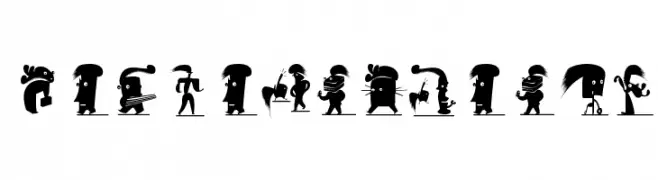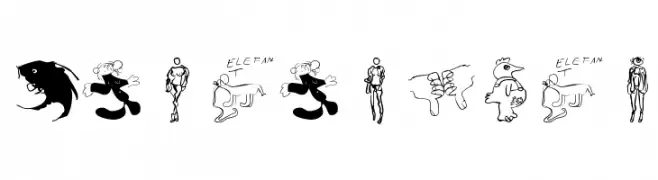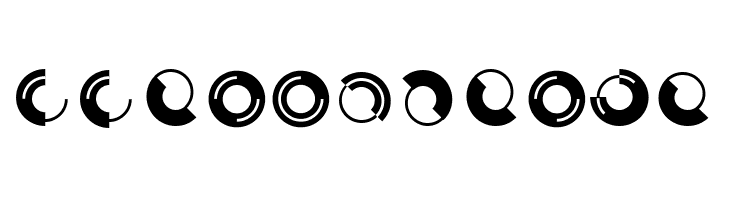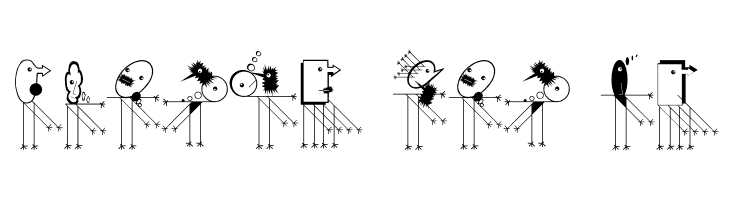
A playful and decorative font featuring dinosaur-like creatures as characters.
A playful, decorative typeface with characters designed as expressive circular faces.
A quirky, illustrative display font with characters depicted as abstract stick-figure birds.
A decorative, creature-themed display font with bold, illustrative glyphs.
A pictorial silhouette font featuring playful and narrative scenes.
Whimsical cartoon character font with a playful, illustrated style.
Cartoonish, hand-drawn font with each letter as a comic illustration.
A playful, hand-drawn illustrative font with unique doodles for each character.